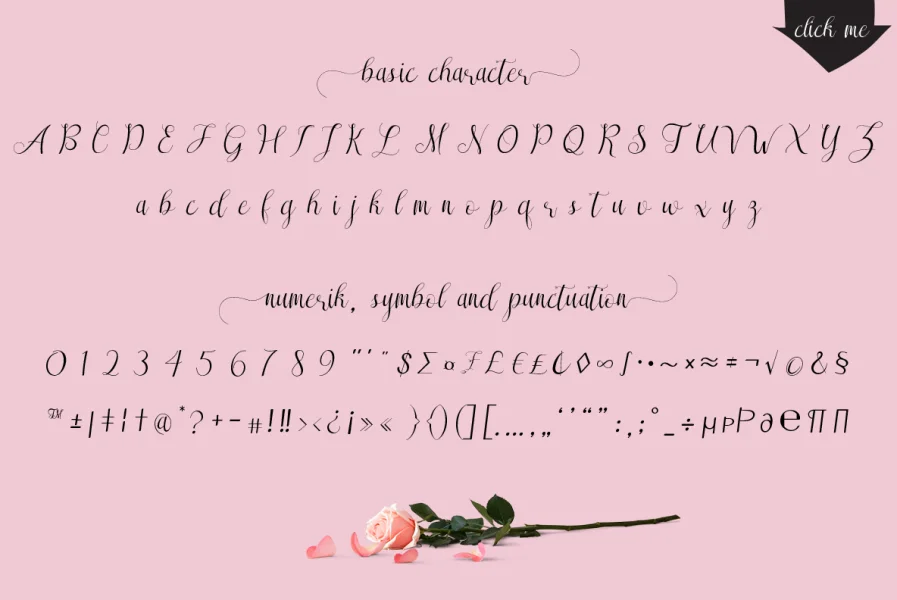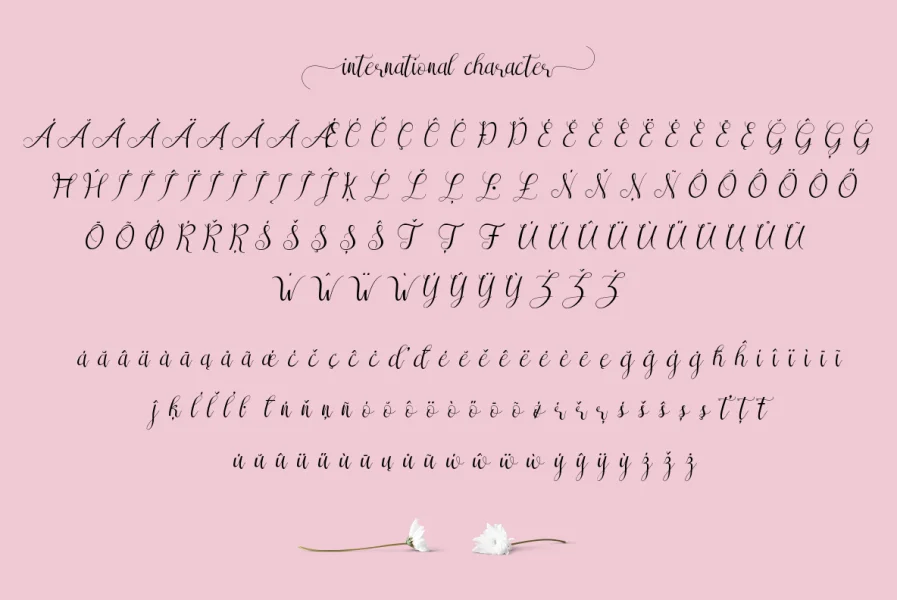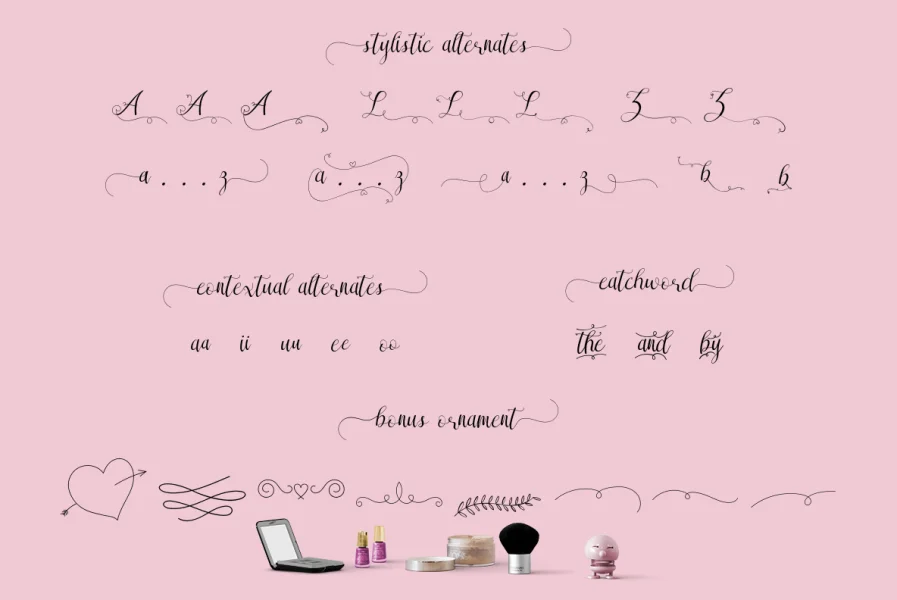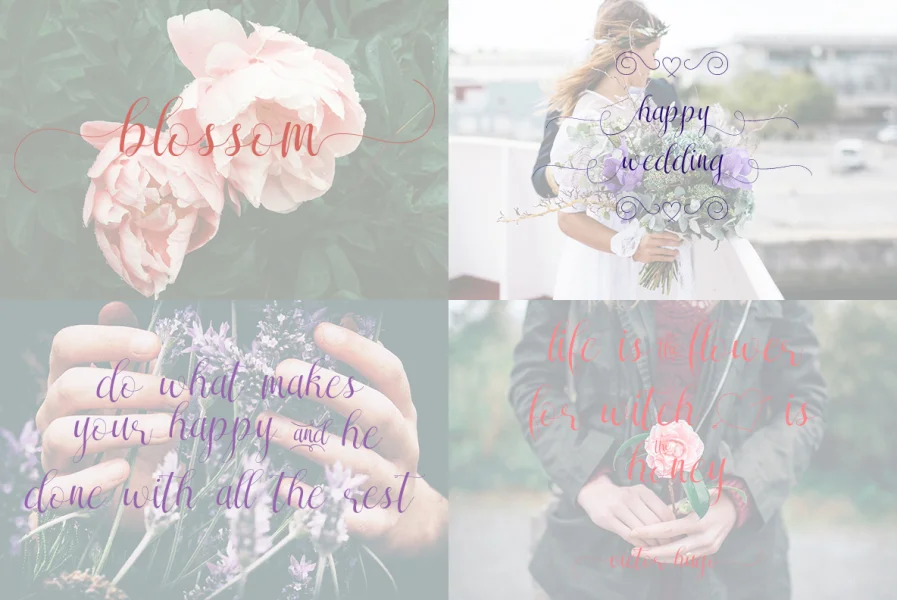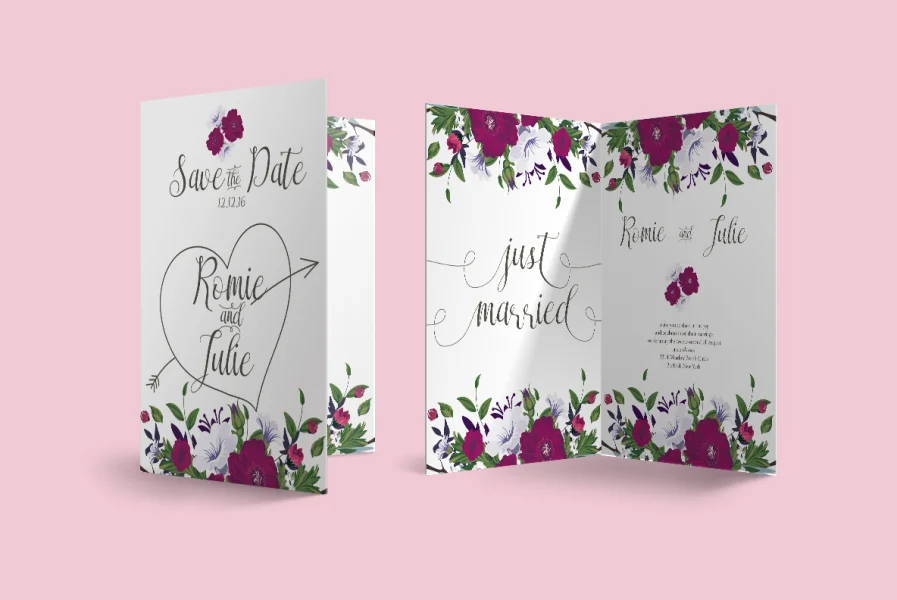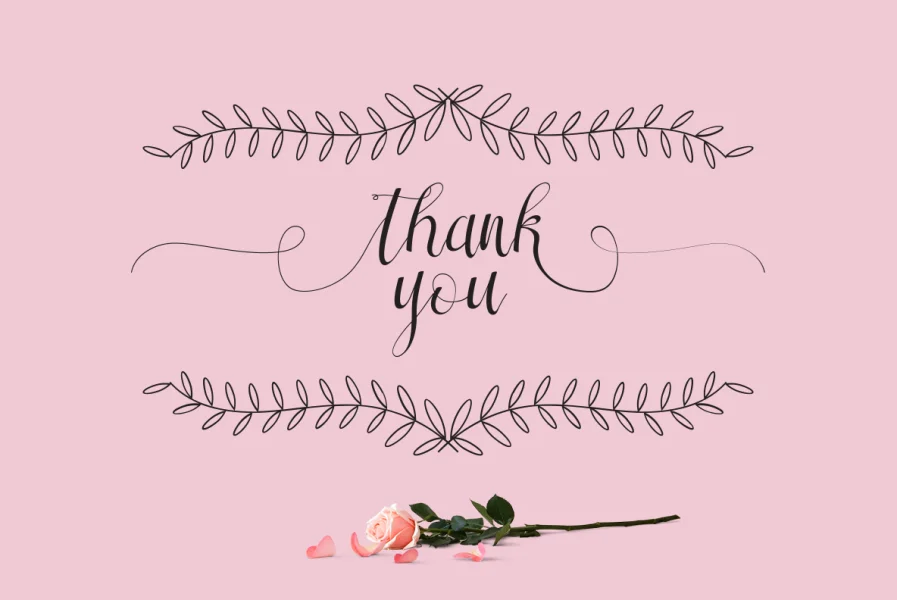
Sareeka is a modern calligraphy typeface with more variation stylistics sets and many features. Sareeka is very suitable for feminine designs, clothing, wedding events, wedding invitations and many more to design what you want.
- Basic Glyphs, Numerals, Symbol and punctuation
- Stylistic Sets 1 - 8
- Stylistic Alternates
- Ligatures and Discretionary Ligatures
- Swash
- Contextual Alternates
- Multilingual Support